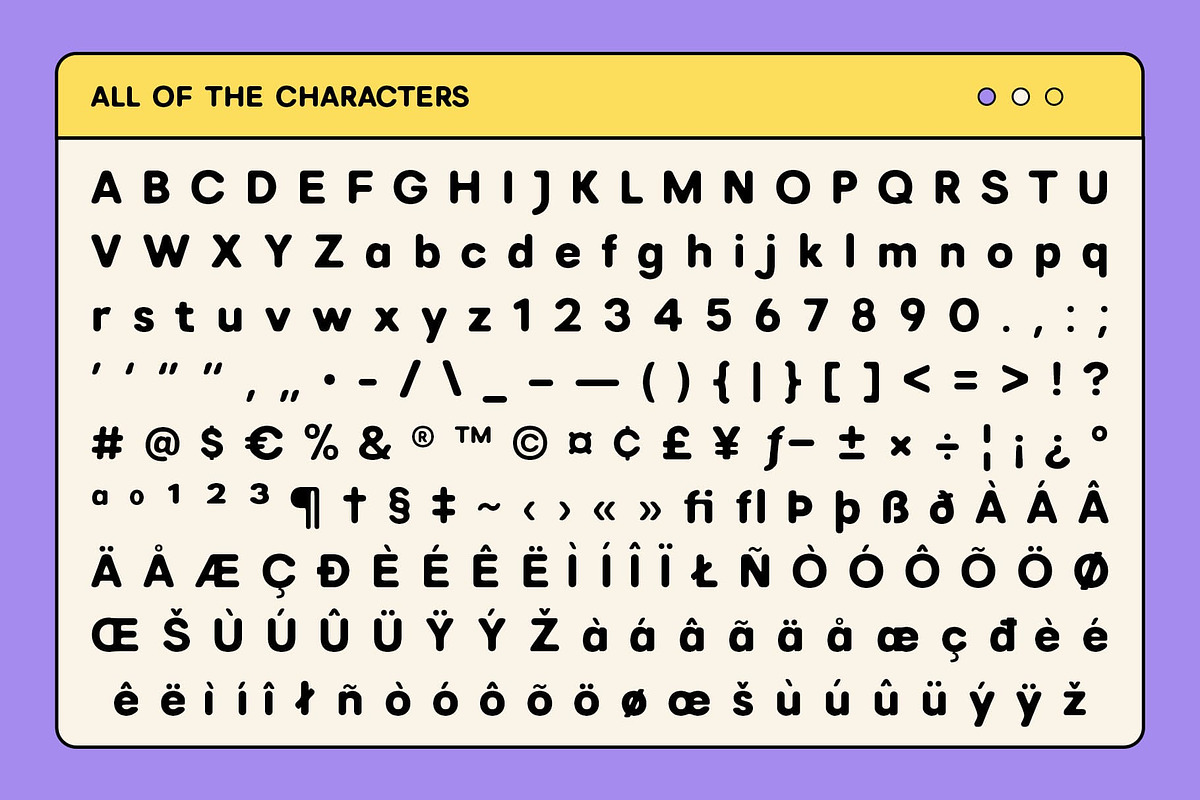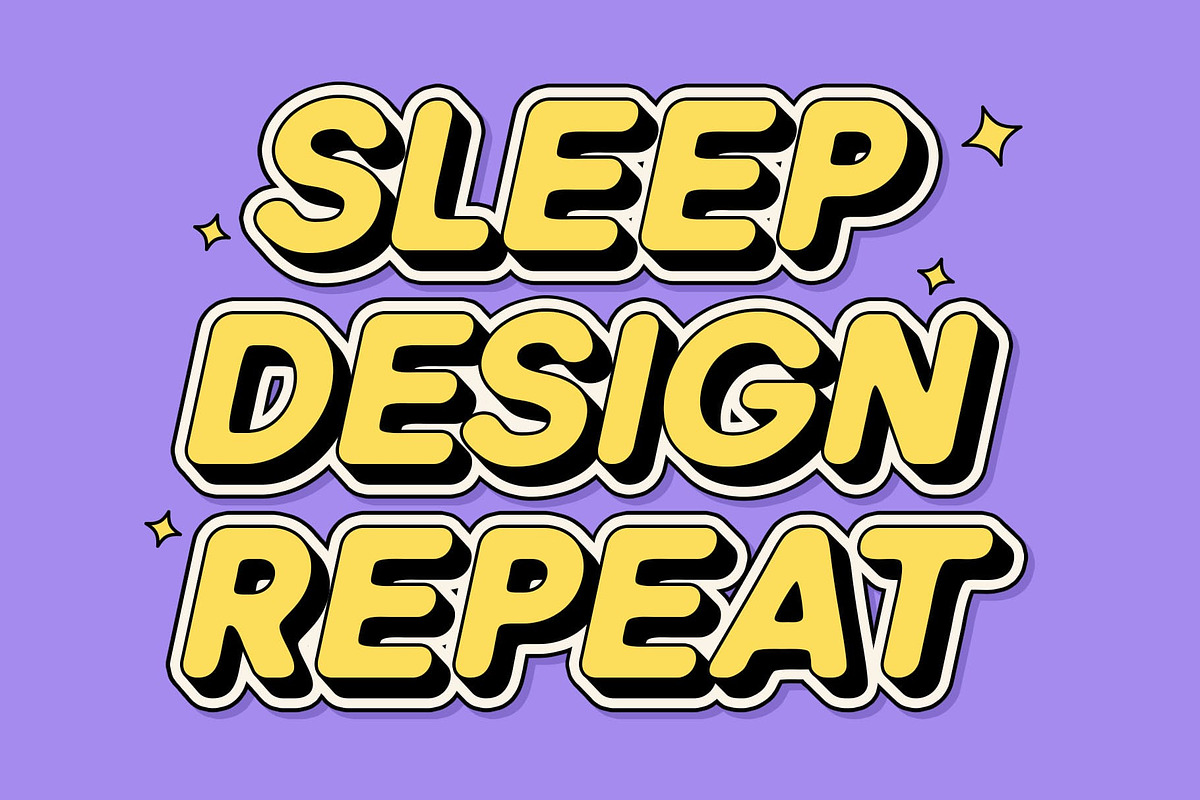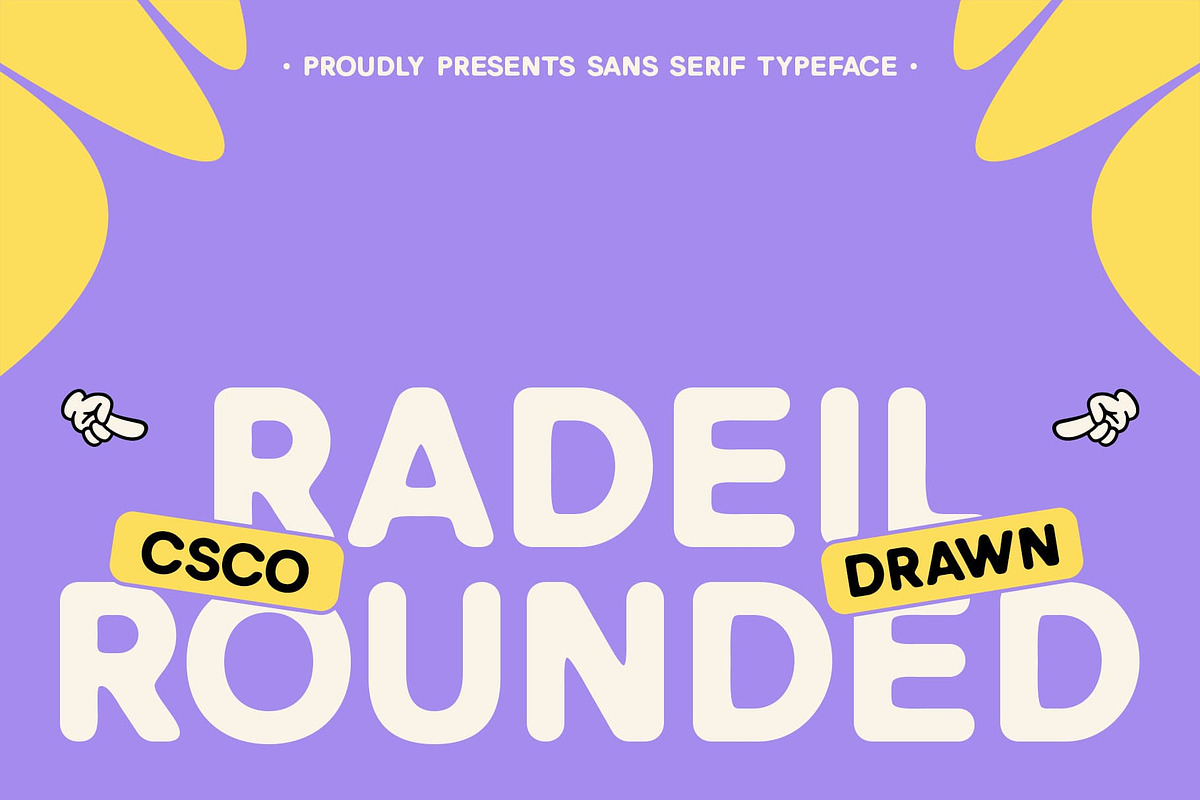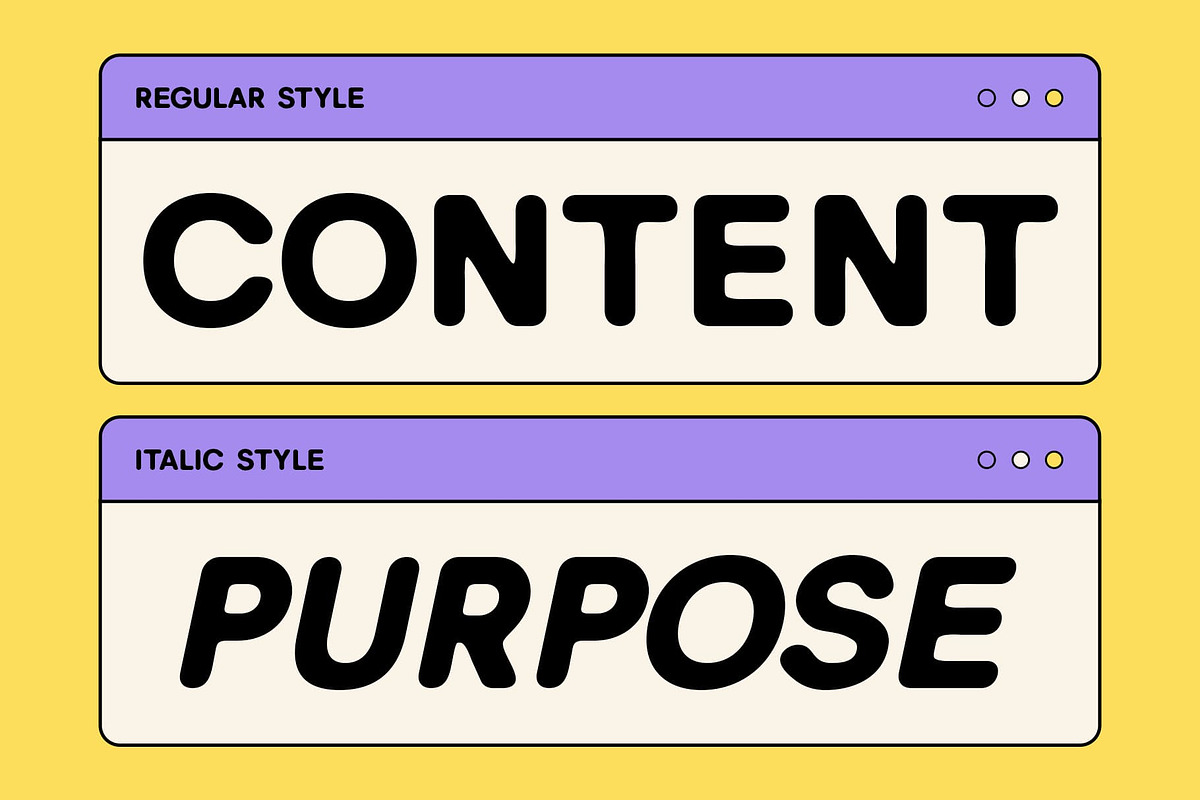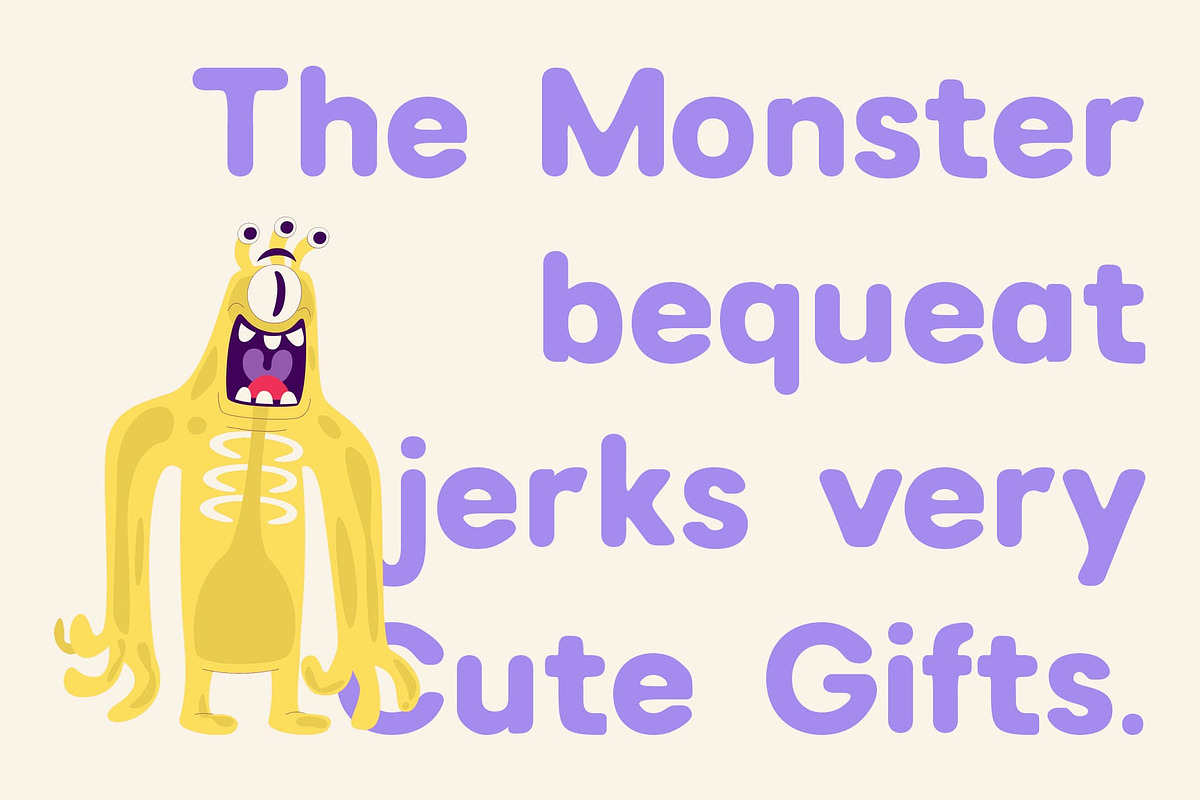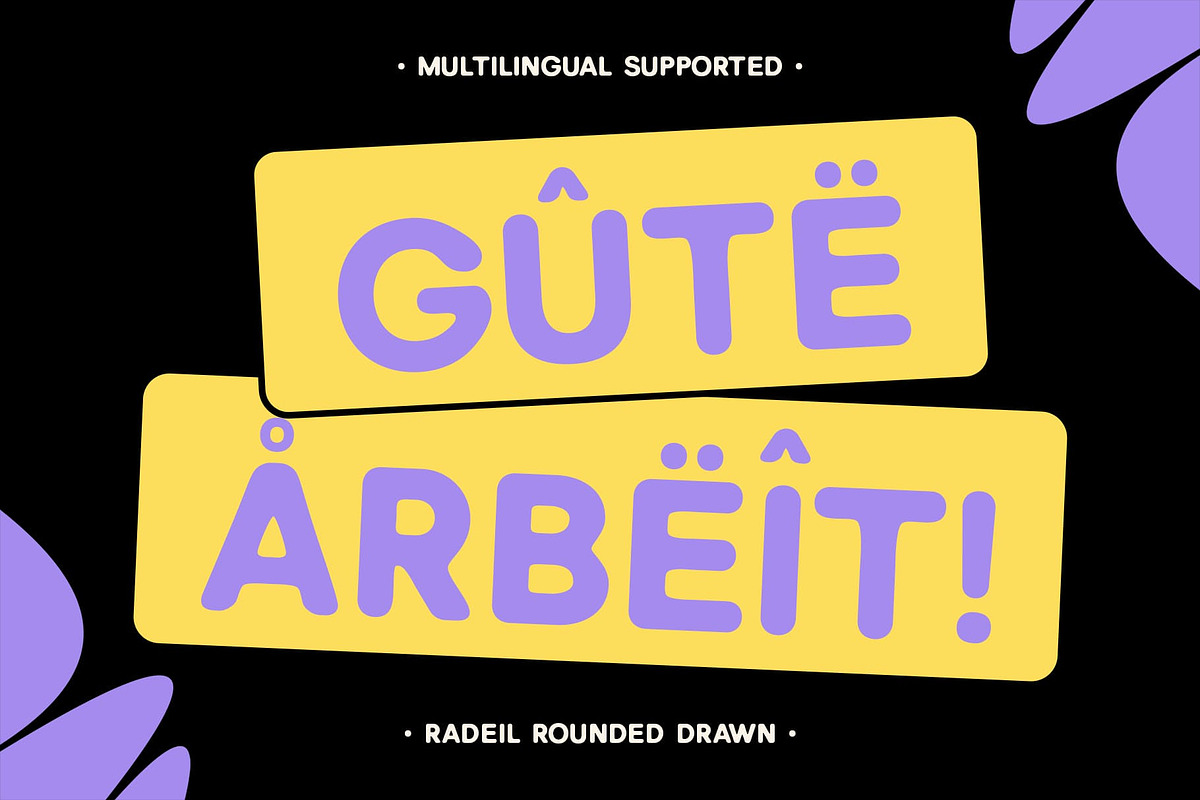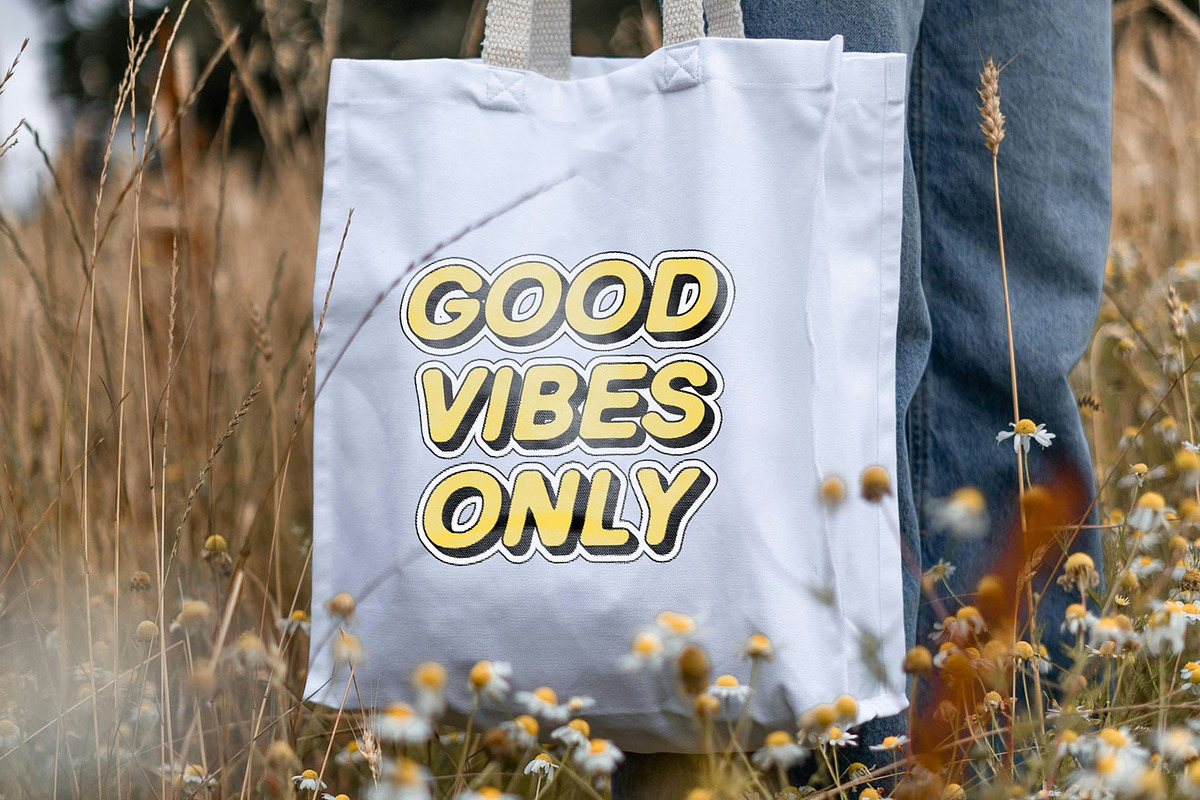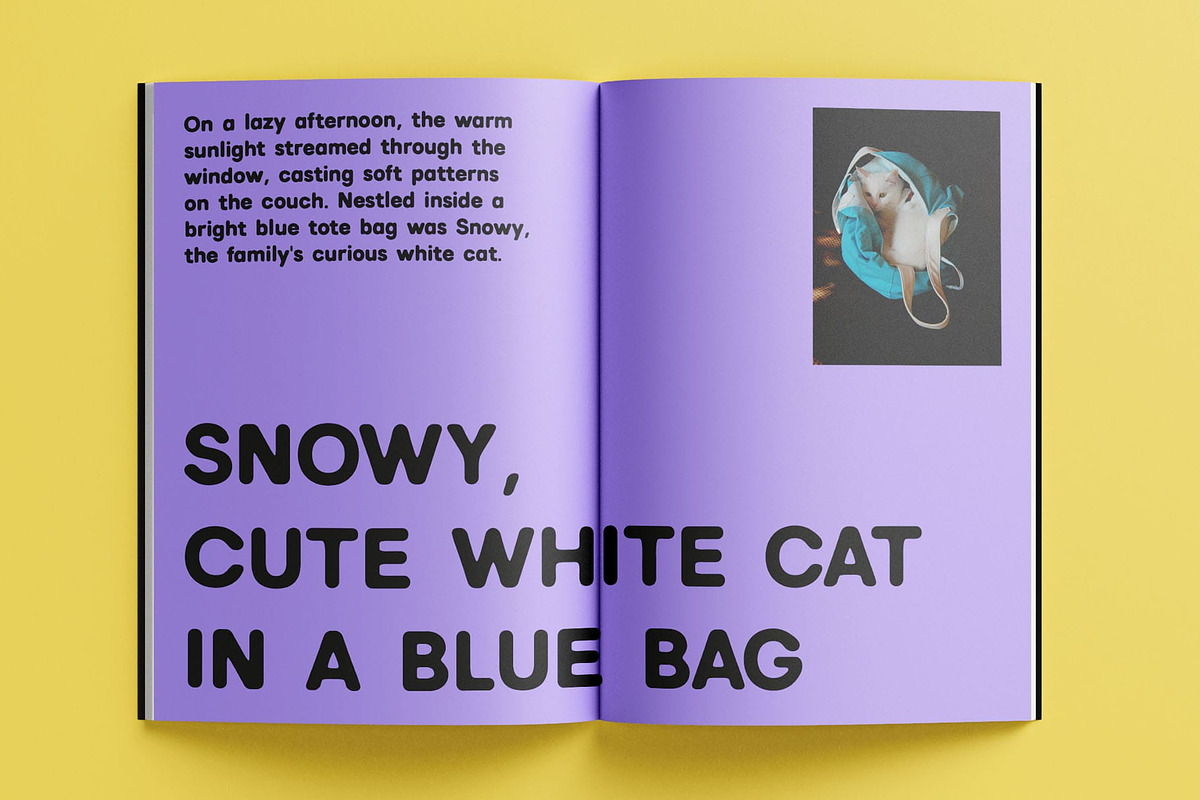
Radeil Rounded Drawn
Radeil Rounded Drawn – Bold Meets Hand-Crafted Expression
Modern Sans Serif Font with Rounded Geometric Form and Drawn Effect This is a modern sans serif font that merges bold geometric structure with soft rounded forms, delivering a contemporary design that feels both powerful and approachable. Its smooth curves and strong lines are elevated by a drawn effect, giving it a unique, hand-crafted personality.
Geometric Strength with Rounded Warmth Designed with solid, geometric shapes and rounded edges, this contemporary font balances clarity and friendliness. Its structure ensures bold legibility, while the roundness adds a soft, humanized character—perfect for projects that aim to be visually striking yet inviting.
Drawn Effect for Expressive and Artistic Appeal The hand-drawn texture adds a creative, imperfect quality that contrasts with its geometric precision. This subtle irregularity brings warmth, charm, and a personal feel—ideal for designs that aim to reflect creativity, individuality, and authenticity.
Bold, Friendly, and Uniquely Human This modern font is perfect for creative projects that want to combine structure with soul. From playful tech branding to lifestyle packaging and artistic campaigns, this font provides a dynamic and engaging voice that stands out with both confidence and warmth.